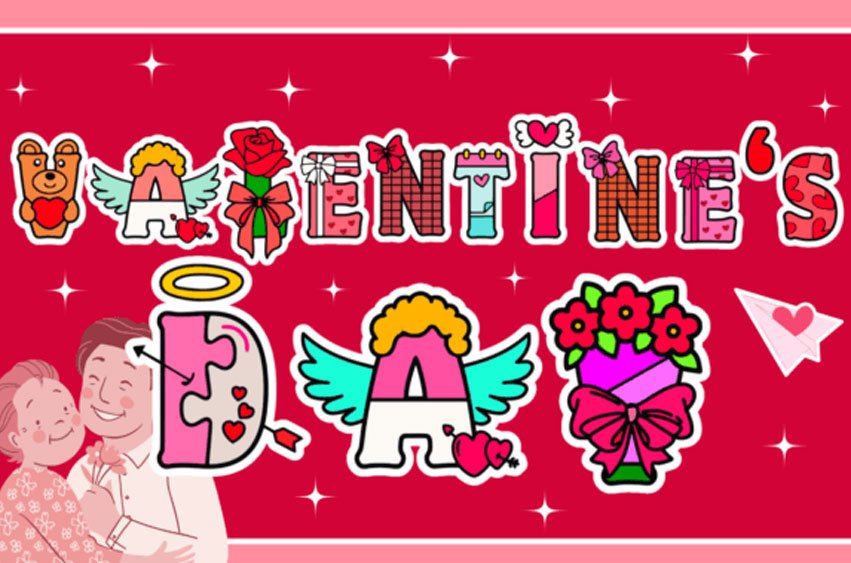
Valentine’s Day Font decorative font features letters adorned with sweet elements like hearts, roses, and Cupid’s arrows.
The letters are playful and charming, perfect for creating a romantic, festive vibe.
Valentine’s Day Font decorative font features letters adorned with sweet elements like hearts, roses, and Cupid’s arrows.
The letters are playful and charming, perfect for creating a romantic, festive vibe.